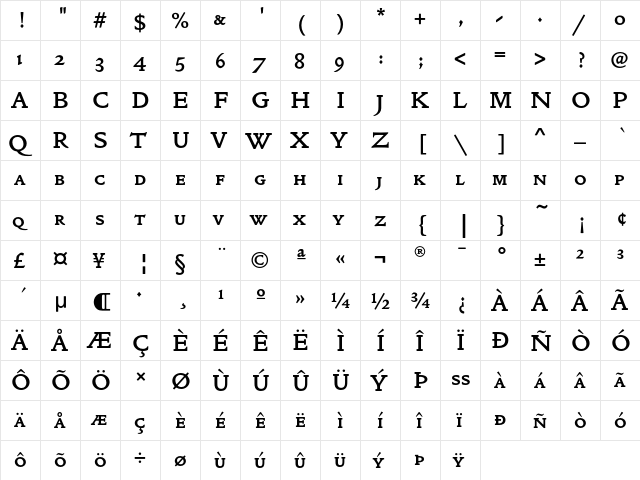
GoldenTypeSCEF Bold
Design Context for GoldenTypeSCEF Typeface
GoldenTypeSCEF takes a measured approach to typography — its balanced proportions and neutral character make it a reliable workhorse for both digital and print work. The heavy weight commands attention and anchors typographic hierarchies.